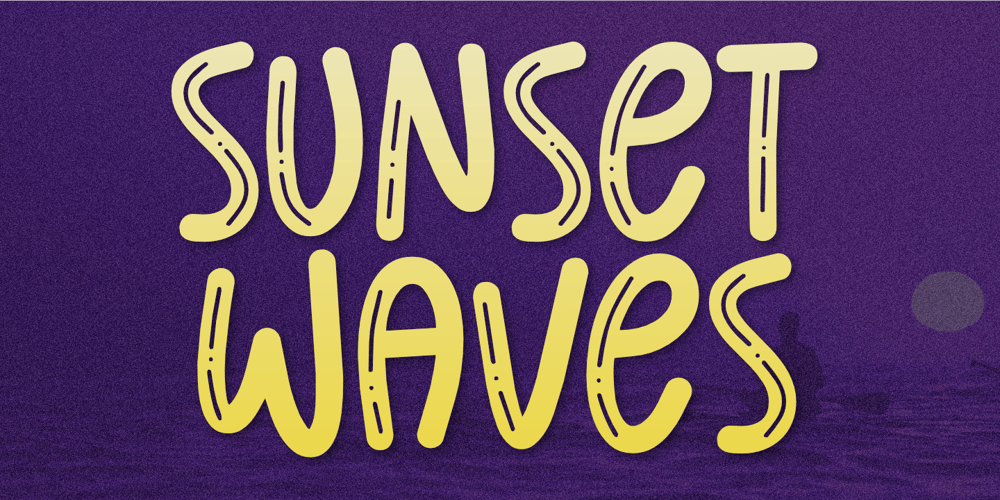
Sunset Waves
Sunset Waves font
Sunset Waves Font Family was designed by Aldy Sidik and published by Epiclinez. Sunset Waves contains 1 styles and family package options. Welcome to Sunset Waves, a fun display font that adds a playful touch to your project. This font is the right choice for creating graphics with an eye-catching and unique style. Whether you want a creative edge for your party invitations or looking to jazz up a logo design, this funky font is here to make a difference.Thank You